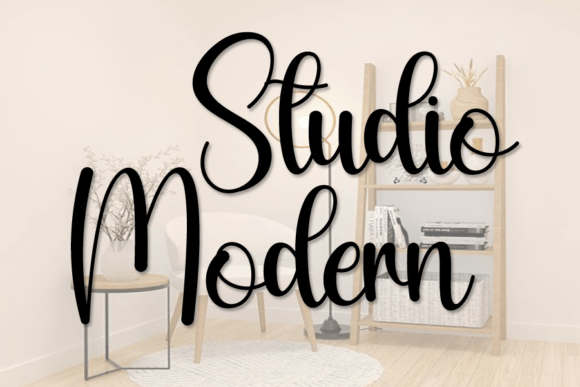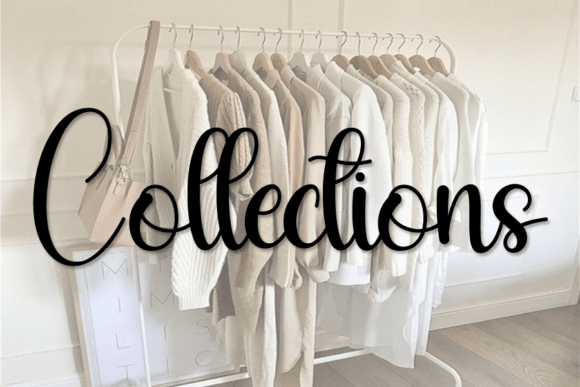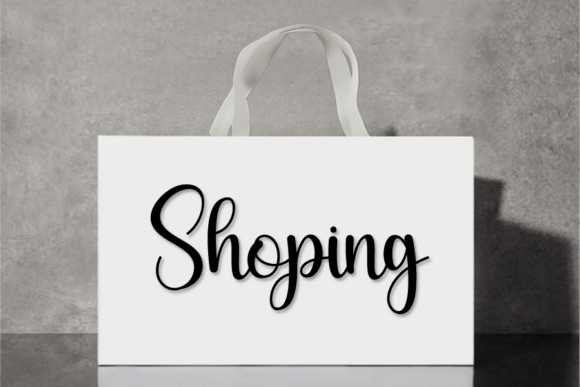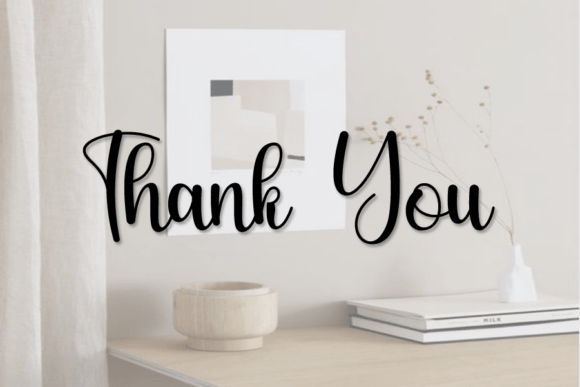
Bhoseph Siblings Font: A Timeless Handwritten Script for Creative Projects
In the world of typography, a good font can make all the difference in the success of a design project. Whether you’re a graphic designer, a crafty DIY enthusiast, or a digital artist, finding the right font can elevate your work from ordinary to extraordinary. If you’re on the hunt for a classic and simple handwritten script that’s perfect for a wide range of creative projects, look no further than Bhoseph Siblings Font.
What is Bhoseph Siblings Font?
Bhoseph Siblings is a beautiful, handwritten script font that exudes a sense of simplicity and elegance. Created in a random and free style, this font is perfect for designers who want to add a touch of personality to their work. With its classic and timeless feel, Bhoseph Siblings Font is suitable for a wide range of applications, from logotypes and headlines to corporate identity, brand identity, and more.
Key Features of Bhoseph Siblings Font
So, what makes Bhoseph Siblings Font so special? Here are just a few of its key features:
- Classic and simple design: Bhoseph Siblings Font boasts a clean and uncomplicated design that’s perfect for creating elegant and sophisticated designs.
- Handwritten script: This font has a beautiful, handwritten feel that’s perfect for adding a personal touch to your designs.
- Random and free style: The font’s random and free style gives it a unique and organic feel that’s perfect for creating eye-catching designs.
- Versatile: Bhoseph Siblings Font is suitable for a wide range of applications, from logotypes and headlines to corporate identity, brand identity, and more.
Use Cases for Bhoseph Siblings Font
So, what can you use Bhoseph Siblings Font for? The possibilities are endless! Here are just a few ideas to get you started:
- Logotype and branding: Use Bhoseph Siblings Font to create a unique and memorable logotype for your brand.
- Headlines and titles: This font is perfect for creating eye-catching headlines and titles for your blog posts, articles, and other written content.
- Corporate identity: Use Bhoseph Siblings Font to create a cohesive and professional look for your company’s marketing materials.
- Apparel industry: This font is perfect for creating stylish and eye-catching designs for t-shirts, hoodies, and other apparel.
- Posters and flyers: Use Bhoseph Siblings Font to create bold and eye-catching posters and flyers for your next event or promotion.
- Music and movie projects: This font is perfect for creating stylish and sophisticated designs for music and movie projects.
- Games and comics: Use Bhoseph Siblings Font to create fun and playful designs for games, comics, and other digital content.
- Websites and social media: This font is perfect for creating a cohesive and professional look for your website and social media profiles.
Why Choose Bhoseph Siblings Font?
So, why should you choose Bhoseph Siblings Font for your next design project? Here are just a few reasons:
- Unique and eye-catching: This font has a unique and eye-catching design that’s sure to grab attention.
- Versatile: Bhoseph Siblings Font is suitable for a wide range of applications, making it a great addition to any designer’s toolkit.
- Elegant and sophisticated: This font has an elegant and sophisticated feel that’s perfect for creating high-end designs.
- Easy to read: Despite its elegant feel, Bhoseph Siblings Font is easy to read, making it perfect for body text and other written content.
| Author | Abadi letter |
In conclusion, Bhoseph Siblings Font is a classic and simple handwritten script that’s perfect for a wide range of creative projects. With its unique and eye-catching design, versatile applications, and elegant feel, this font is sure to become a staple in any designer’s toolkit. Whether you’re a graphic designer, a crafty DIY enthusiast, or a digital artist, Bhoseph Siblings Font is a great choice for adding a touch of personality and sophistication to your work.